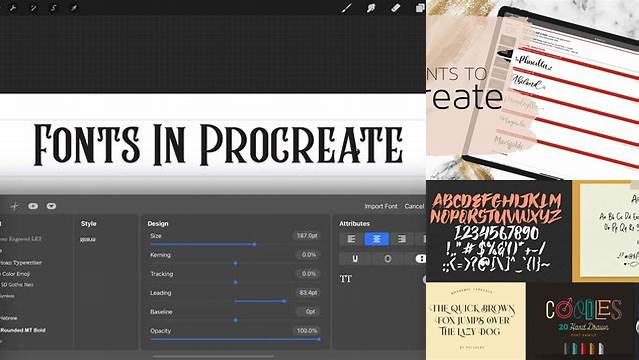
Free Procreate Fonts: Your Ultimate Download Guide
Hey guys! Let's dive into the awesome world of Procreate fonts! If you're an artist, designer, or just someone who loves playing around with digital art on your iPad, you know how important fonts are. They can completely transform your work, adding personality, style, and a touch of professionalism. And the best part? You can find tons of Procreate fonts download free! This guide is your one-stop shop for everything you need to know about finding, installing, and using fonts in Procreate. Get ready to level up your digital art game!
Procreate Fonts: Why They Matter for Your Art
So, why are fonts so crucial, you ask? Well, imagine trying to tell a story without words, or a painting without color. Fonts are the words and the style of your artwork. They can evoke emotions, set a mood, and guide the viewer's eye. Choosing the right font can make your artwork look polished, professional, and downright stunning. Think about it: a delicate script font can give a touch of elegance to a floral illustration, while a bold, chunky font can add a modern, edgy feel to a graphic design. Finding the perfect Procreate fonts download free can save you a lot of money. And by using them wisely, you will get the perfect result. You can use them for:
- Adding Text to Your Illustrations: Need to add a quote, a title, or some descriptive text to your artwork? Fonts are your best friend.
- Designing Logos: Crafting a logo? The font you choose is a crucial part of your brand's identity.
- Creating Social Media Graphics: Making Instagram posts or Pinterest pins? Fonts will make your graphics pop and grab attention.
- Personalizing Your Artwork: Want to add a unique touch to your digital art? Fonts allow you to express your creativity and style.
The world of fonts is vast and exciting, with countless options to explore. Understanding the basics of font types, licensing, and where to find free fonts will allow you to master the use of fonts in the digital art. It's all about finding the right font to match your artistic vision.
Free Procreate Fonts: Where to Find the Good Stuff
That's it! You can now select your new font and start typing. Have fun experimenting with different sizes, colors, and styles.
Understanding Font Licenses: What You Need to Know
Before you start using those awesome Procreate fonts download free, it's super important to understand font licenses. Think of a font license like a set of rules that tell you how you can use a font. Ignoring these rules could land you in legal trouble, so let's break it down:
Procreate Fonts: Frequently Asked Questions Answered
Here are some common questions about Procreate fonts:
Pro Tip: Explore and get creative!